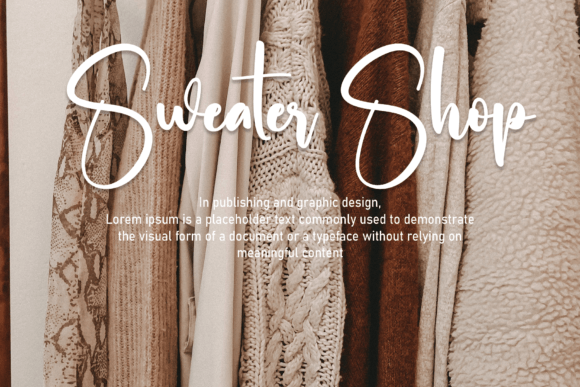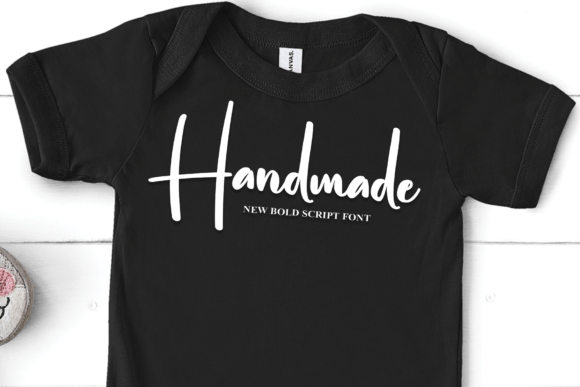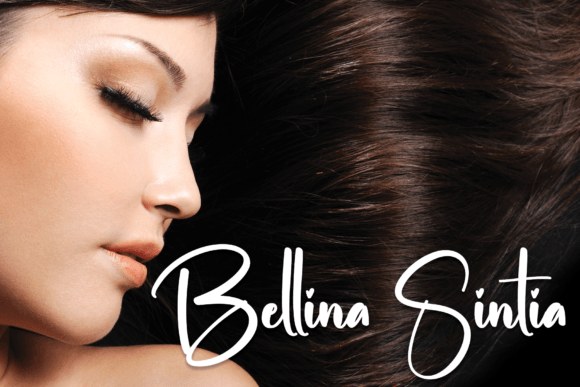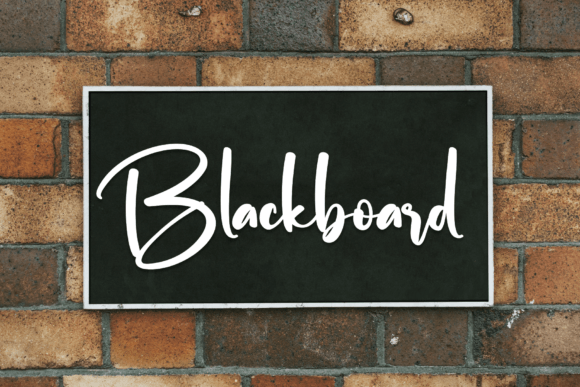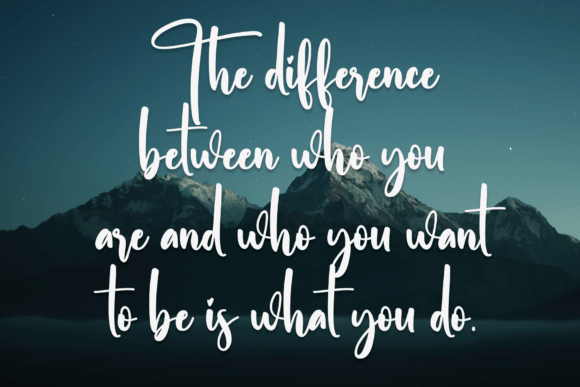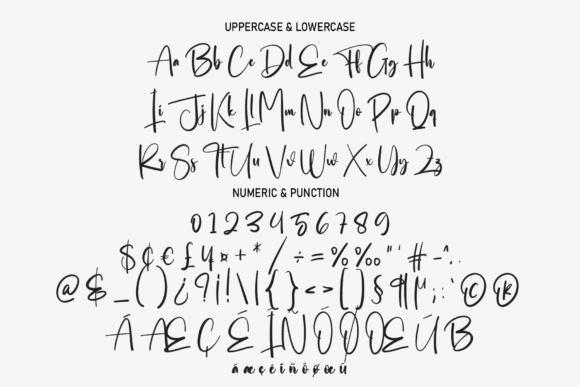
Get Ready to Fall in Love with the Perfect Handwritten Touch
Who else remembers those late-night brainstorming sessions with their best friend, pouring over fonts and colors, trying to find the perfect combination to capture the essence of a project? I’m sure you do! For designers, finding the right font can be the difference between a design that’s just okay and one that truly stands out. And that’s exactly where the Hello Bestie Font comes in – a beautiful, handwritten style that’s perfect for adding a personal touch to any project.
The Hello Bestie Font is designed to be versatile, making it perfect for everything from wall displays and wedding invitations to social media post logos and product packaging. Its unique, handwritten style gives any design a warm and inviting feel that’s hard to resist. As a designer, you’ll appreciate the value that Hello Bestie Font brings to your projects, and your clients will love the personal touch it adds.
Hello Bestie Font Key Features
• Unique Script Style: Hello Bestie Font features a playful, handwritten script style with elegant flourishes and connecting strokes, perfect for creating a personal and friendly tone in your designs.
Hello Bestie Font Review
I recently had the chance to work with the Hello Bestie font, and I must say it’s a unique and eye-catching addition to any design project. ✨ One of the things I like most about this font is its playful and cursive style, which makes it perfect for titles and headings. The swashes and flourishes add a touch of whimsy that’s sure to grab the user’s attention.
Another advantage of the Hello Bestie font is its versatility. It comes in multiple weights, from light to bold, which makes it easy to use in a variety of contexts. ✨ Whether you’re designing a logo, a poster, or a website, this font has got you covered.
What I Liked:
• Playful and cursive style
• Swashes and flourishes add a touch of whimsy
• Multiple weights available
• Perfect for titles and headings
• Not ideal for body text due to its decorative nature
• May be difficult to read in smaller sizes
• Not suitable for formal or professional designs
• ⚠️ May be too playful for some audiences
Overall, I think the Hello Bestie font is a great addition to any designer’s toolkit. While it may have some limitations, its unique style and versatility make it a great choice for the right project. Just be sure to use it wisely and in context.
The “Hello Bestie Font” is perfect for:
Creating social media graphics and posts for friends and family.
Designing party invitations and decorations.
Adding a playful touch to business presentations and marketing materials.